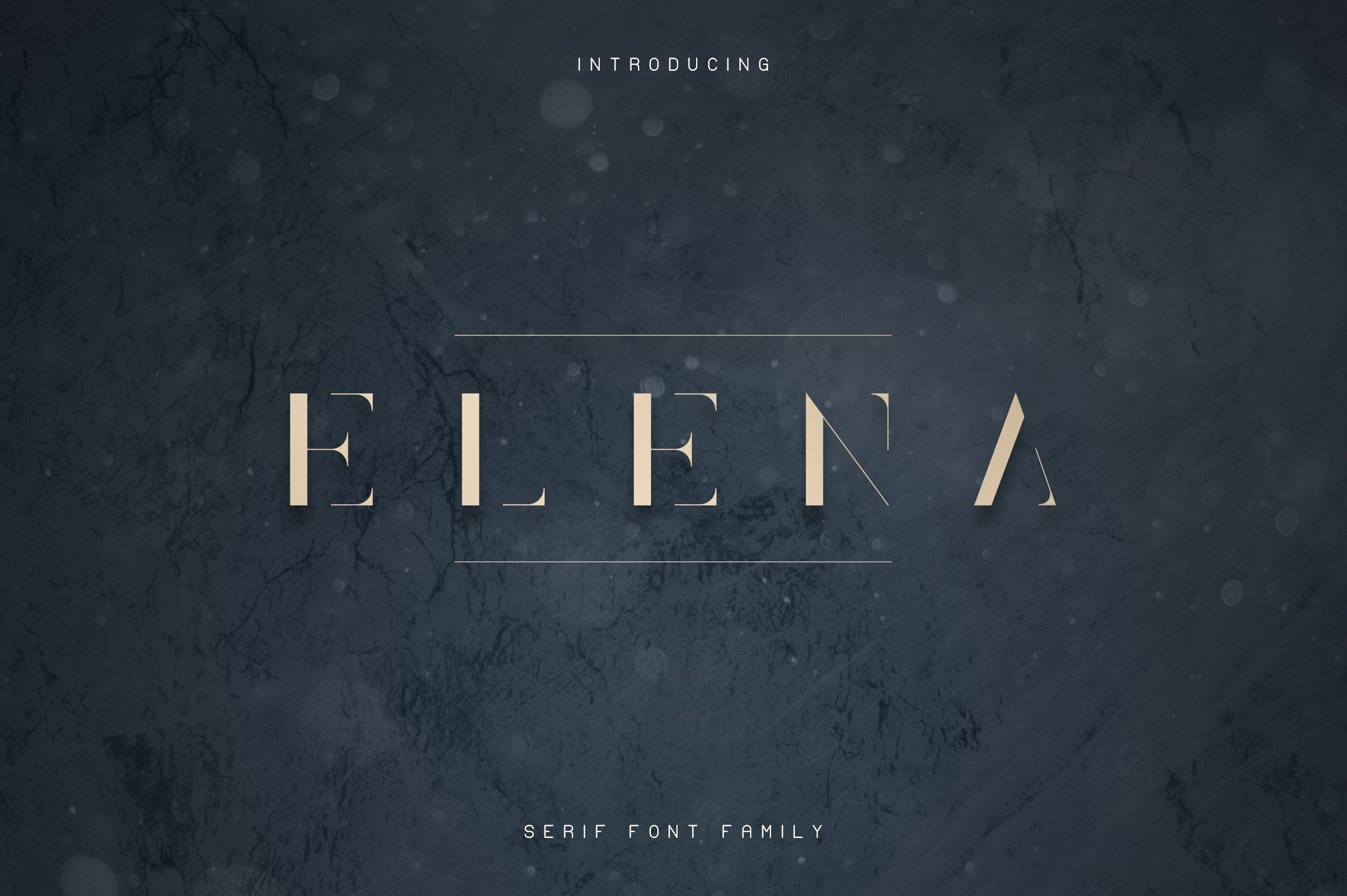
Elena Luxe Serif font
Elena is clean, elegant typeface with 3 fonts and multilingual support. It's a very versatile font that works great in large and small sizes.
Elena is perfect for branding projects, home-ware designs, product packaging, magazine headers - or simply as a stylish text overlay to any background image.
- Uppercase,numeral,punctuation & Symbol
- Light
- Bold